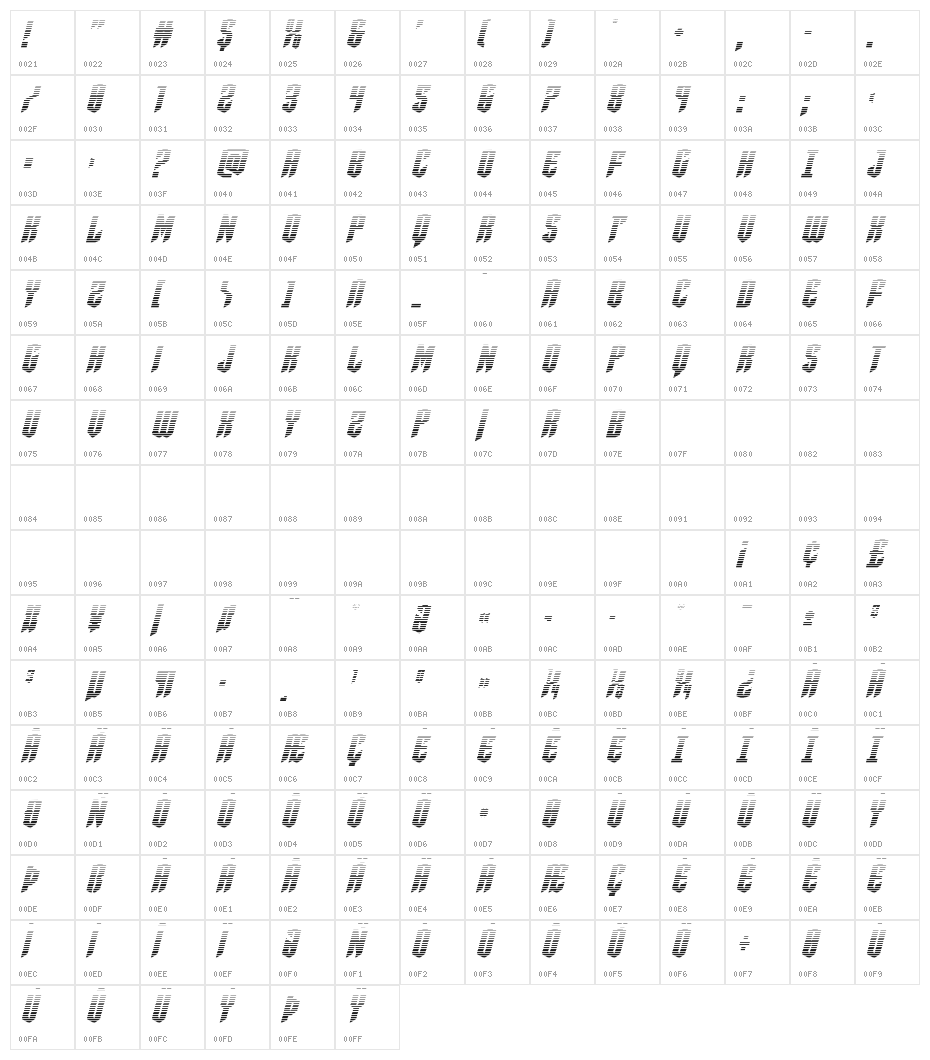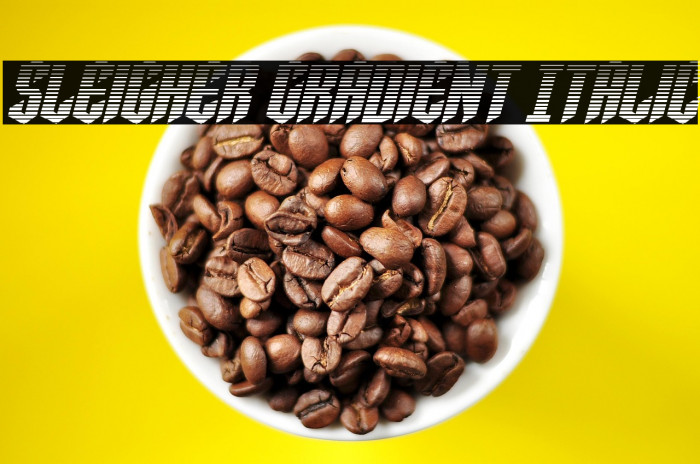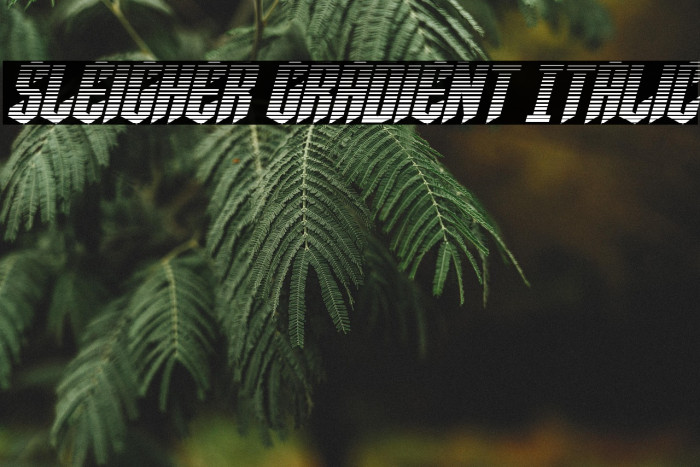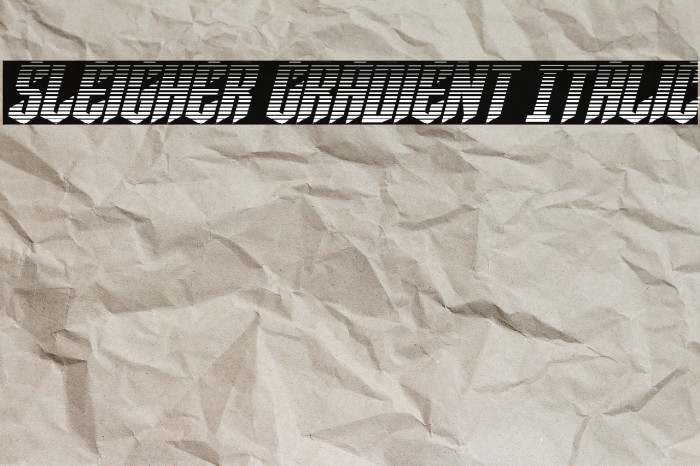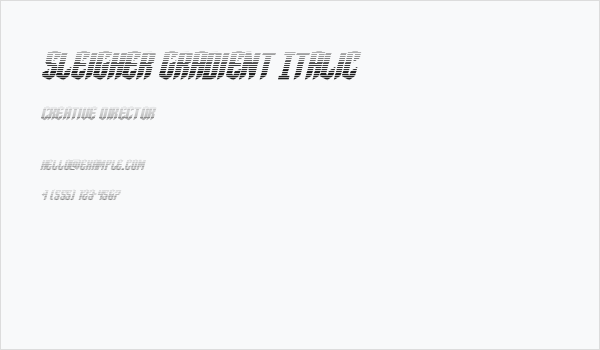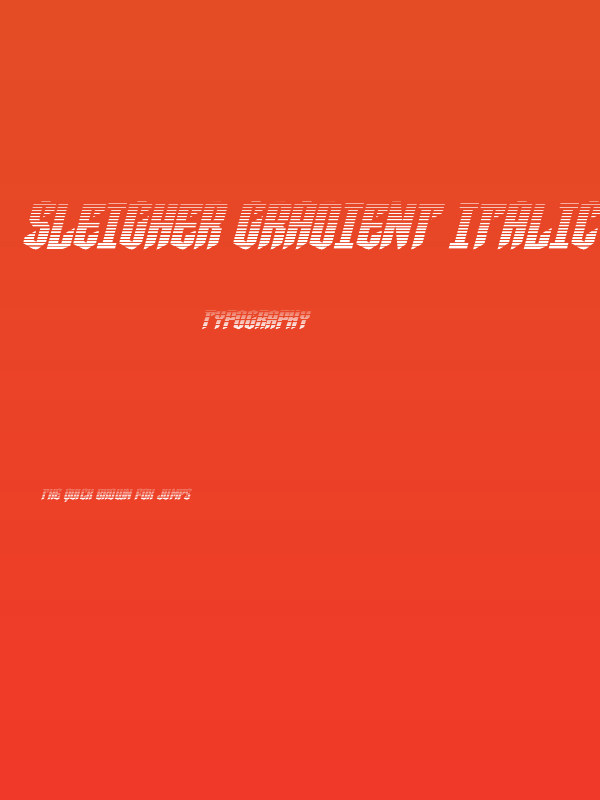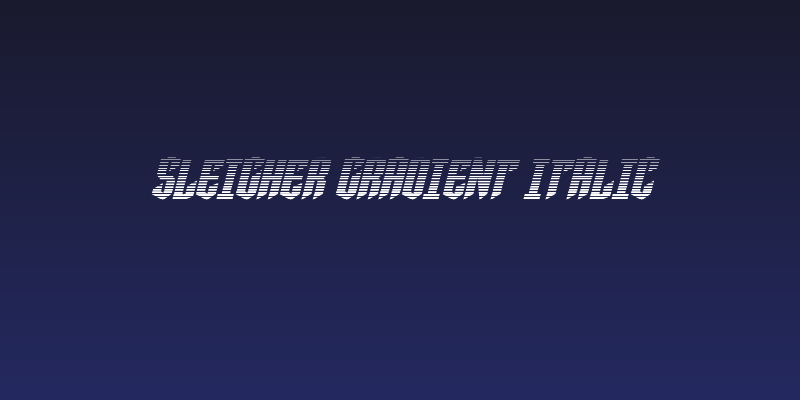
Sleigher Gradient Italic Font
Sleigher Gradient Italic Description
This font features a bold, italicized style with a distinctive gradient effect that gives it a dynamic, energetic appearance. The characters are designed with horizontal lines that create a sense of motion and speed, making it ideal for projects that require a modern and edgy look. The uppercase and lowercase letters maintain a consistent style, with sharp angles and a slight slant that enhances the italic effect. The numbers and special characters are equally bold and maintain the same gradient pattern, ensuring uniformity across all text elements.
Proposed ProjectsIdeal for sports branding, dynamic posters, video game titles, and any project needing a modern, energetic typeface.